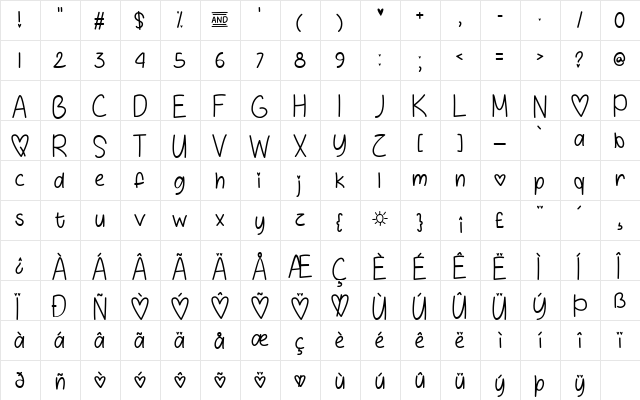
Love and Sunshine Regular
| Foundry | Misti's Fonts |
| Designer | Misti's Fonts |
Design Context for Love and Sunshine Typeface
Love and Sunshine is a composed and adaptable typeface that performs quietly and consistently across a wide range of design contexts.